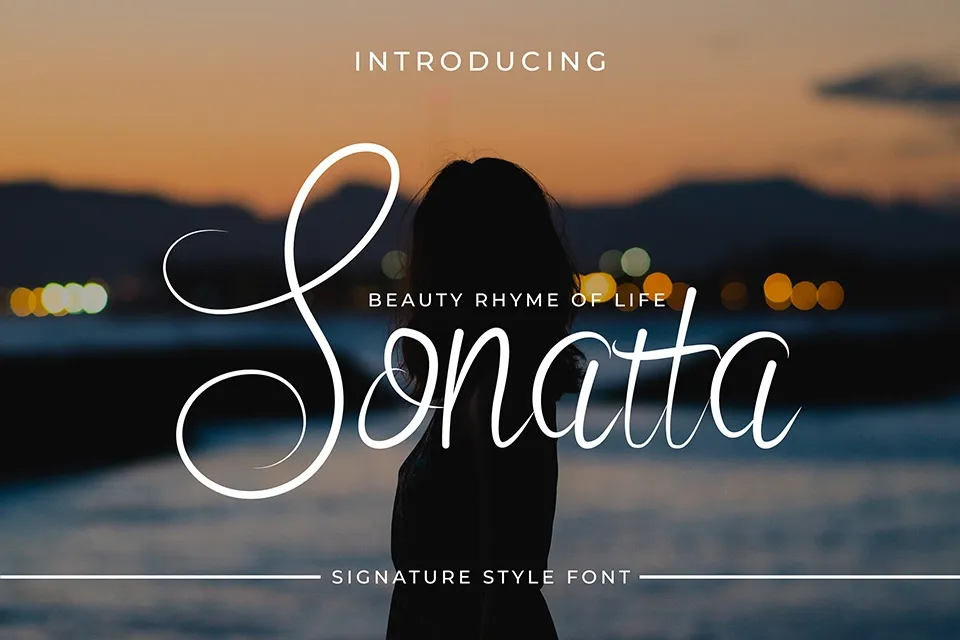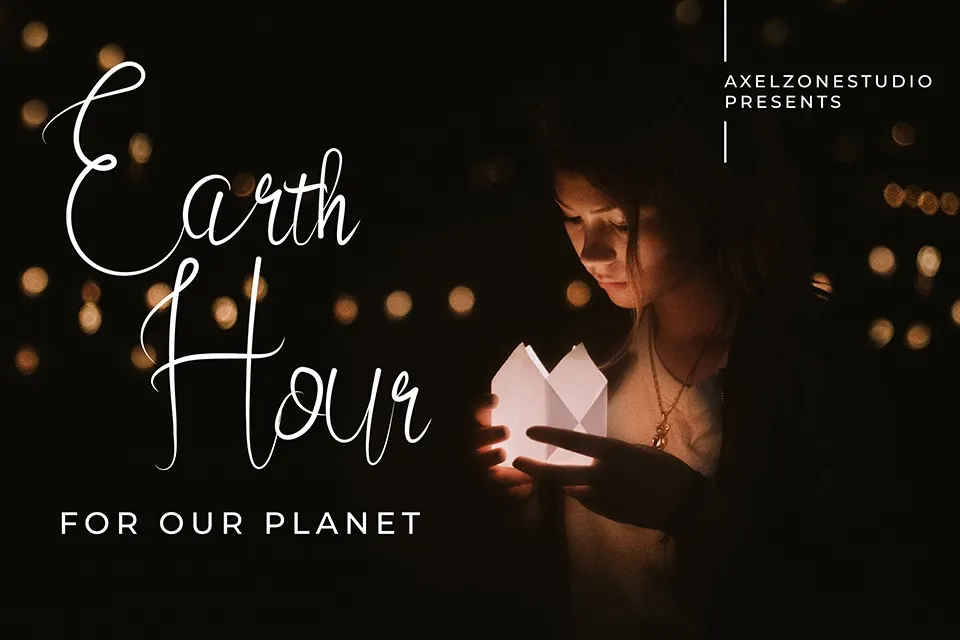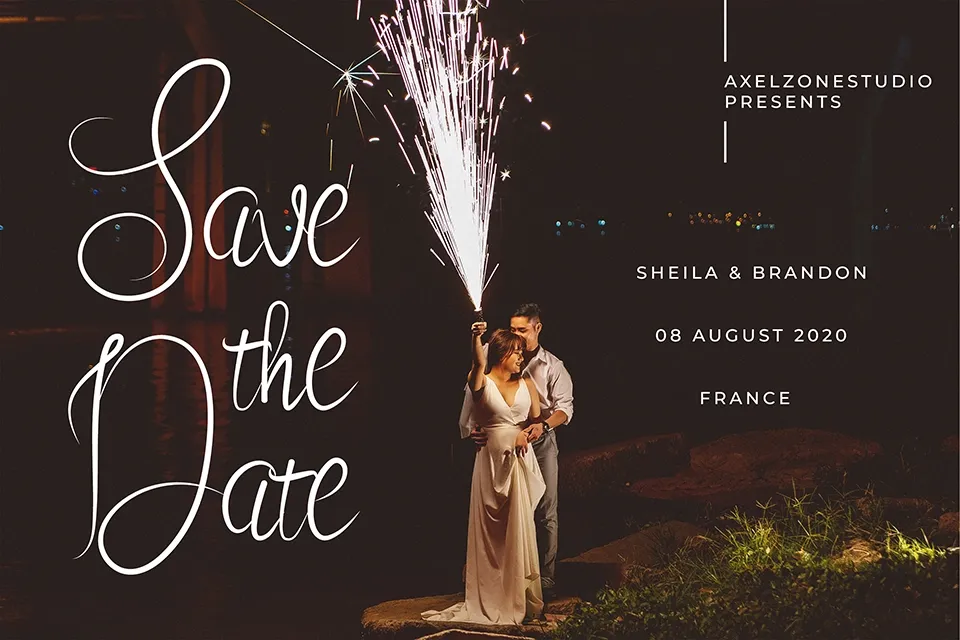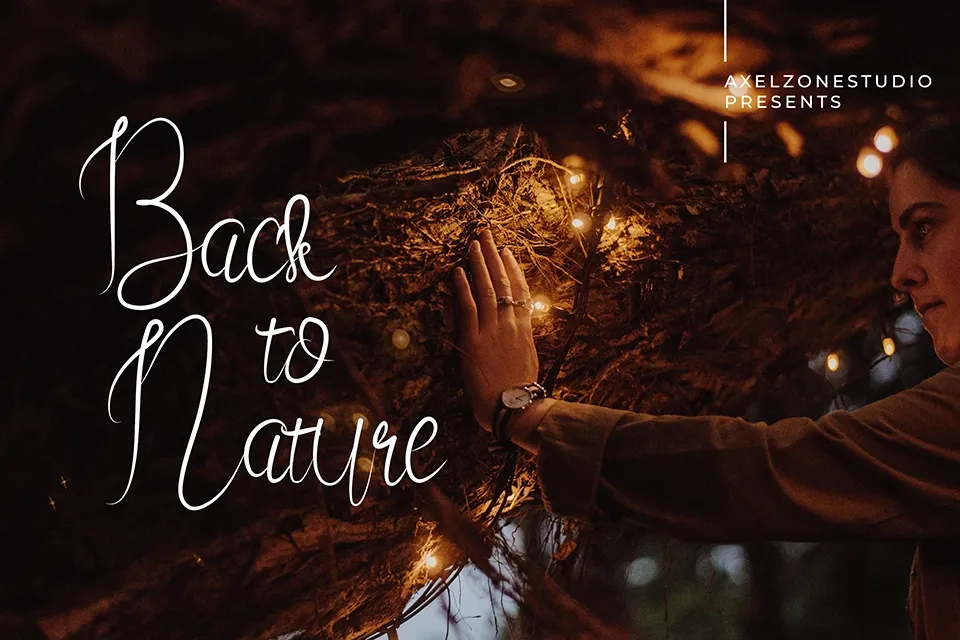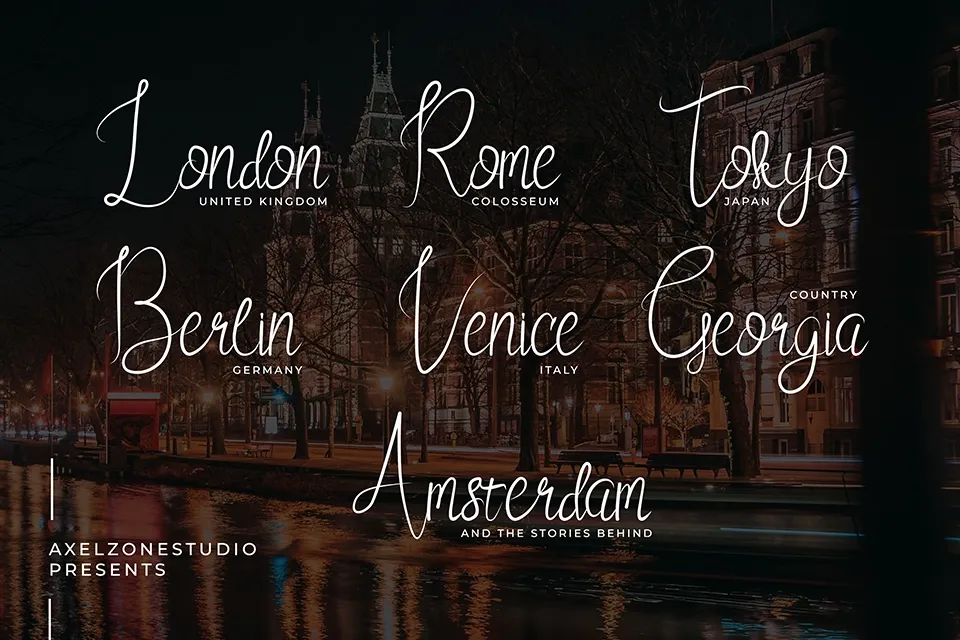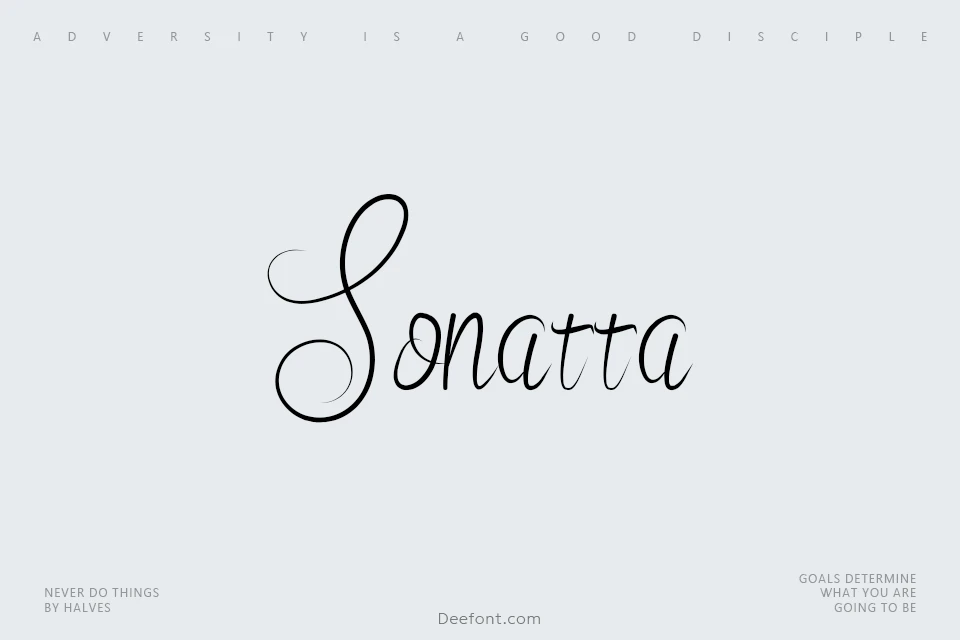
Sonatta Script Font
Sonatta Script Font is a beautiful signature-style font. This elegant typeface captures the fluidity and personal touch of natural handwriting with its graceful, flowing lines and stylish curves. Sonatta is perfect for adding a sophisticated and unique flair to various projects, such as branding, logos, invitations, wedding designs, and social media posts. It excels in applications requiring an authentic, handcrafted signature look, bringing elegance and personality to make your text feel both intimate and refined.